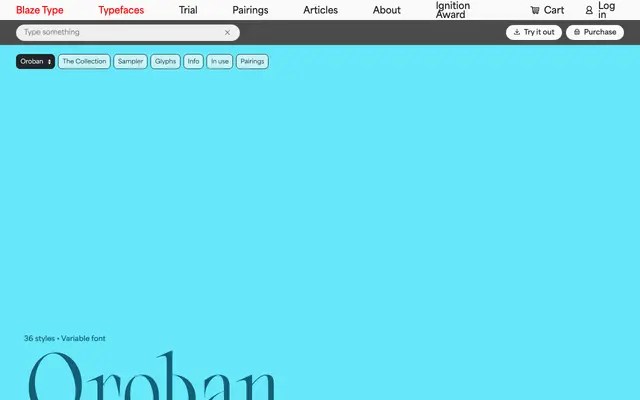
A serif collection from Blaze Type comprising three distinct families — Elegans, Hermonthica and Masuria — each sharing six weights with matching italics across 36 styles and a variable font.
Three subfamilies under one umbrella, each with its own character while sharing an identical weight range from Regular to Black. All 36 styles are available as static fonts and as a variable font, giving designers flexibility across text and display applications. The family suits editorial, literary and branding contexts where a considered serif with tonal range is needed.
The three sub-families — Elegans, Hermonthica and Masuria — each present refined serif letterforms with clear axis contrast and bracketed serifs, consistent with a transitional serif classification. The naming conventions and overall elegance suggest a literary or editorial orientation.